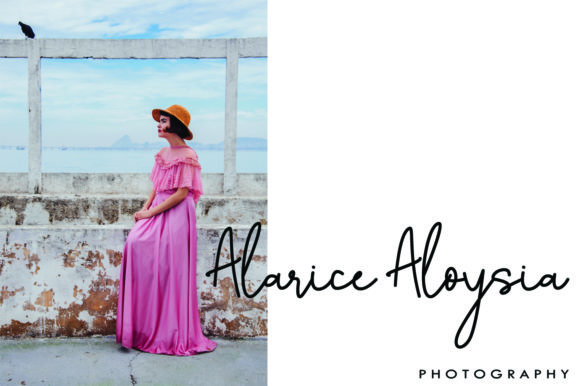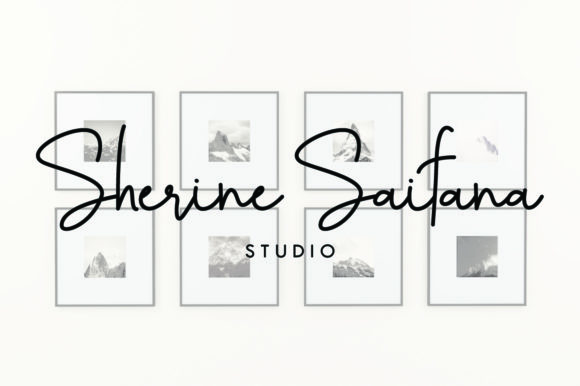
Introduction to Silversun Font
Have you ever found yourself scribbling away in a notebook, lost in the creative process, and suddenly, a beautiful handwritten font emerges from your pen? That’s exactly what happens when you discover the Silversun Font. This elegant handwritten signature script is a treasure trove for designers, offering a natural and stylish touch that elevates any project.
Whether you’re working on a branding project, crafting a wedding invitation, or simply need a signature that stands out, the Silversun Font is an invaluable design resource. Its transparent background and high-quality design make it perfect for creative projects that require a personal touch.
With its free download option, you can unlock the full potential of the Silversun Font and bring your designs to life. In this article, we’ll delve into the world of this stunning font, exploring its features and uses, and why it’s a must-have for any designer looking to add a touch of elegance to their work.
Key Features of Silversun Font
- High-quality, professional font suitable for creative projects and designs.
- Unique, modern design that adds a touch of elegance to any creative project.
Honest Review: Silversun Font
As a designer, I’m always on the lookout for high-quality fonts to enhance my creative projects. The Silversun Font is a recent discovery that caught my attention, and I’m excited to share my thoughts on it.
Here are the key features that work well for me:
- ✨ Beautiful and elegant design that adds a touch of sophistication to any project
- ✨ Highly legible, even at small font sizes
While the Silversun Font has many strengths, there are a few limitations to consider:
- ⚠️ Limited character set, which may not be suitable for projects that require a wide range of special characters
- ⚠️ Transparent background, which can be challenging to work with if you’re not familiar with design software
Overall, I’m impressed with the Silversun Font’s high quality and versatility. It’s a great addition to any designer’s toolkit, especially for creative projects that require a touch of elegance and sophistication.
The Silversun Font is ideal for a variety of creative projects, including presentations, documents, and web designs. Its transparent background and high-quality features make it a valuable design resource for professionals and hobbyists alike. Whether you’re working on a personal project or a commercial venture, the Silversun Font is sure to help you achieve your design goals.